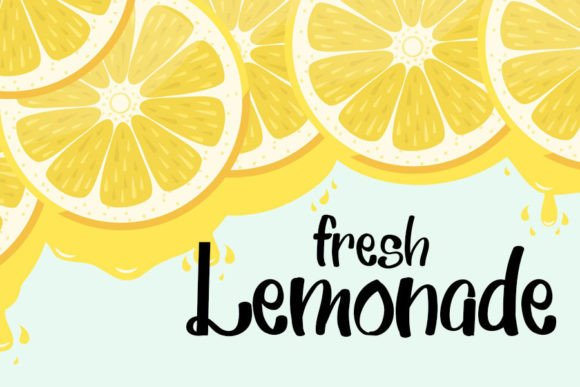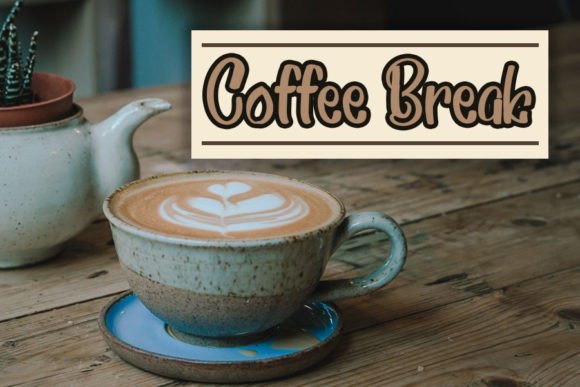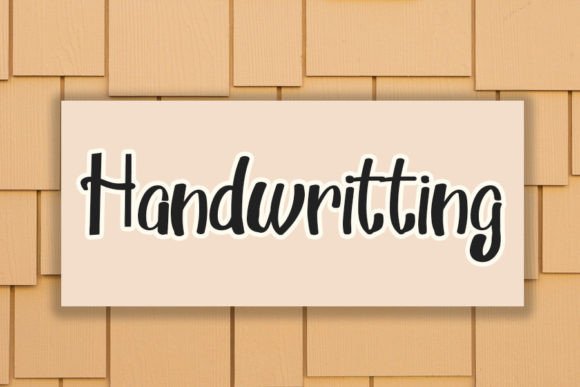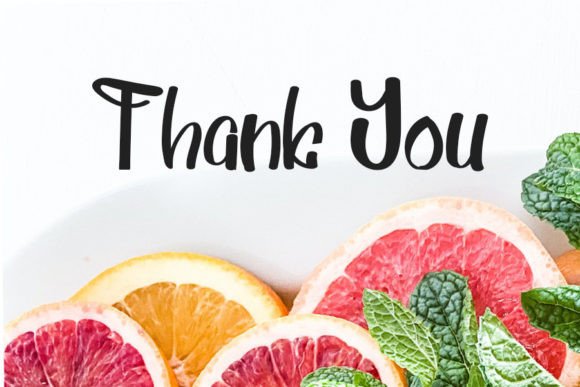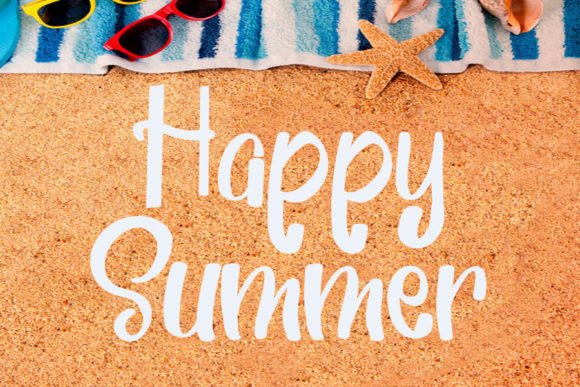
Expresso Font
About Expresso Font
Expresso is a fun and friendly handwritten font. Use it to turn any design idea into a true standout. Get inspired by its unique charm and create lovely designs.